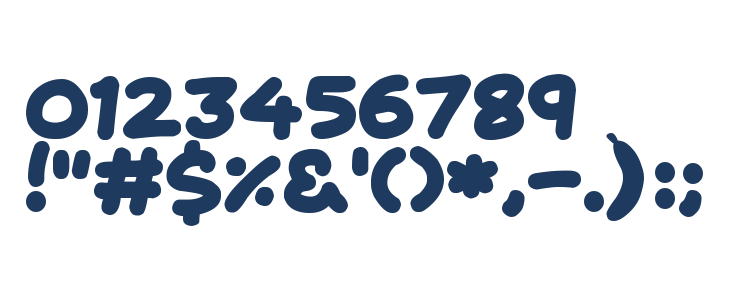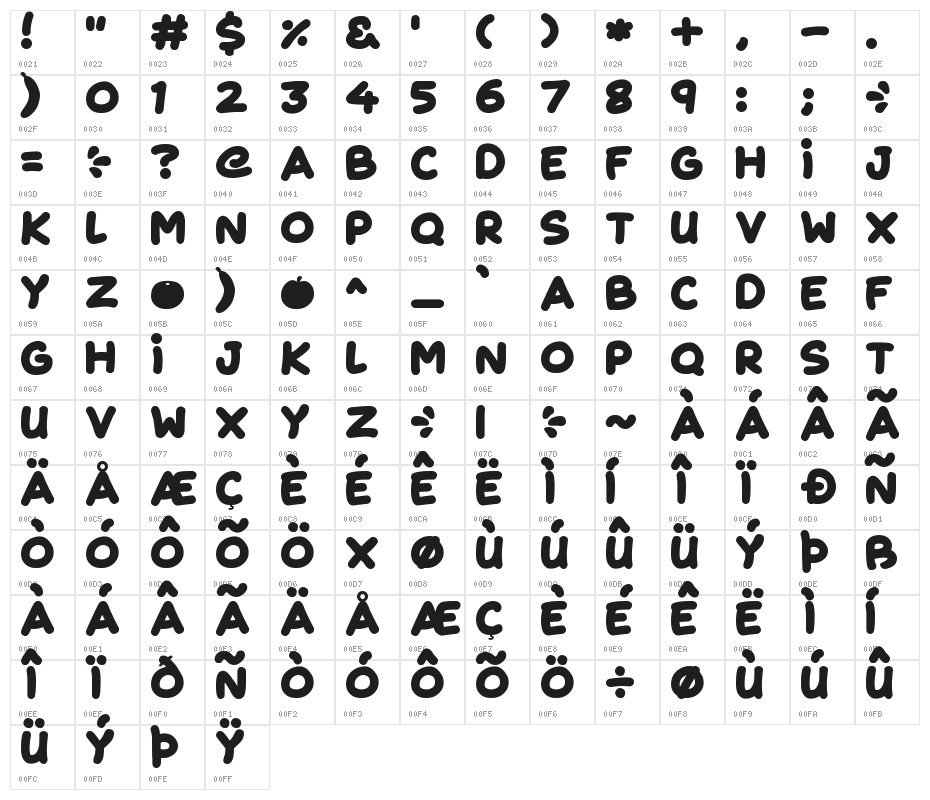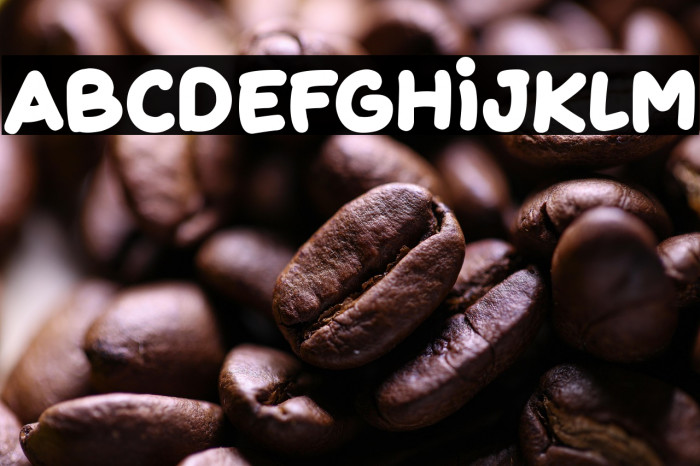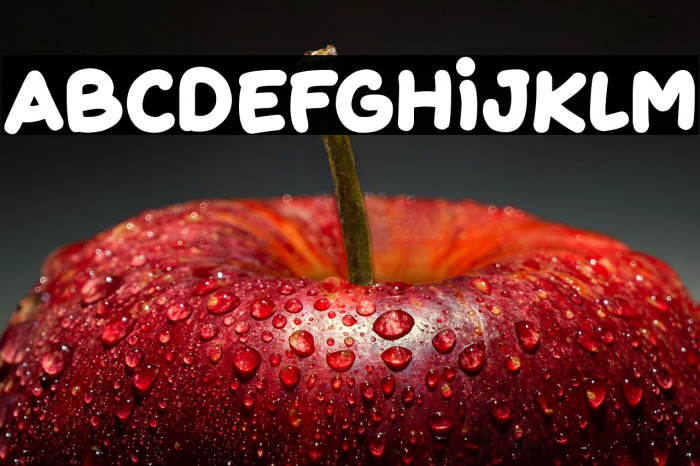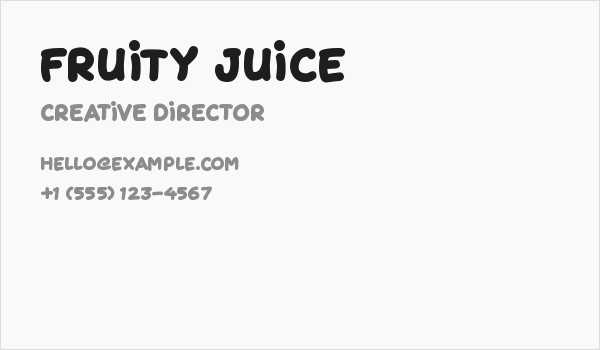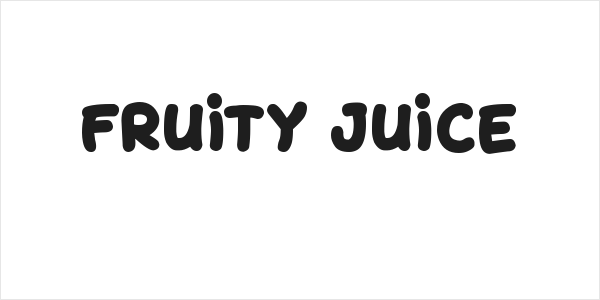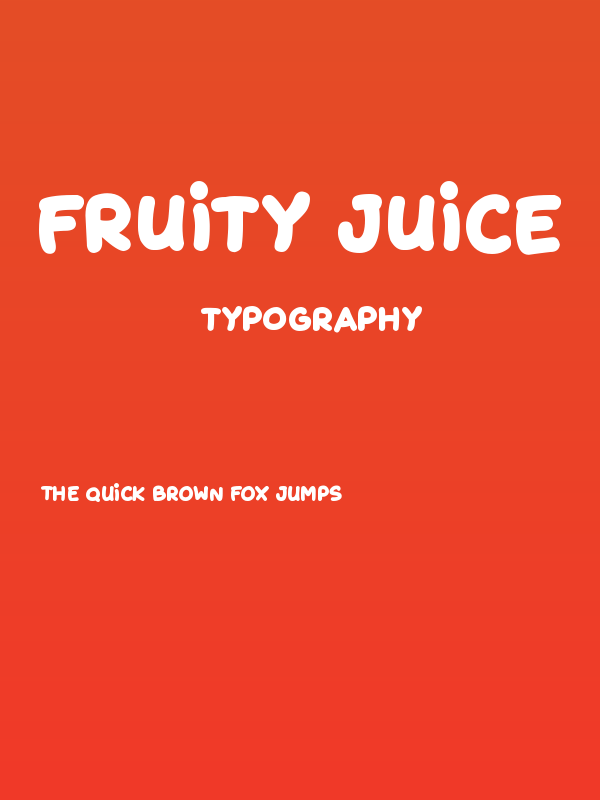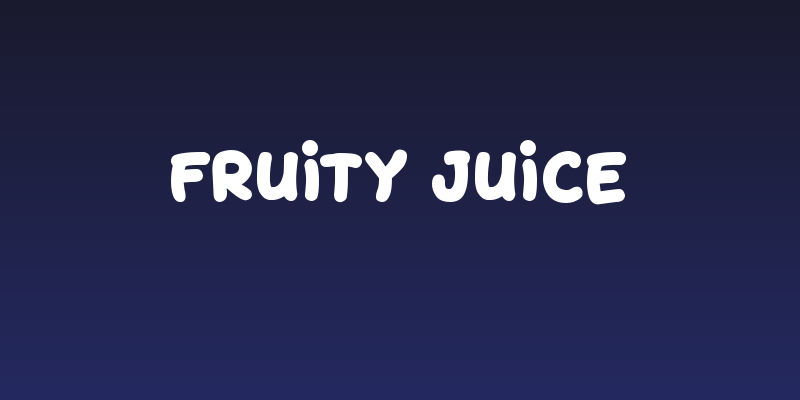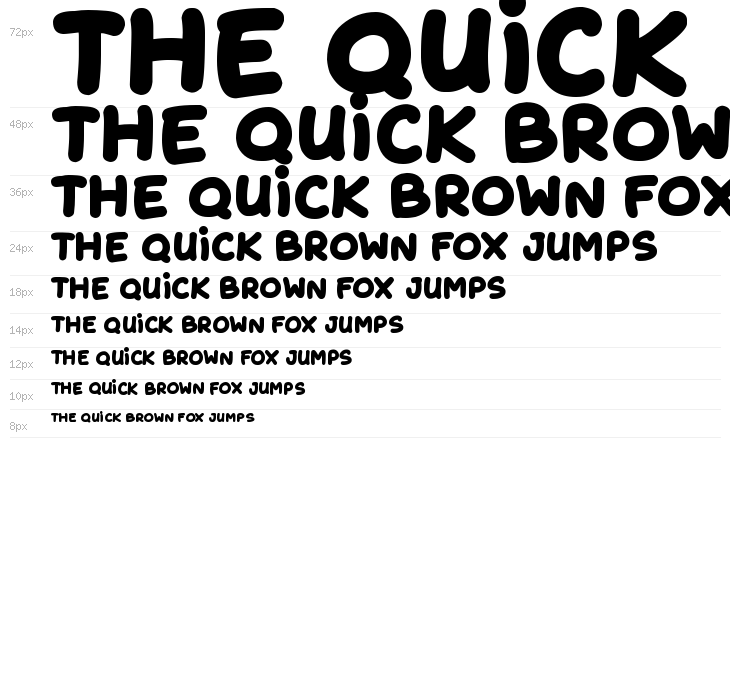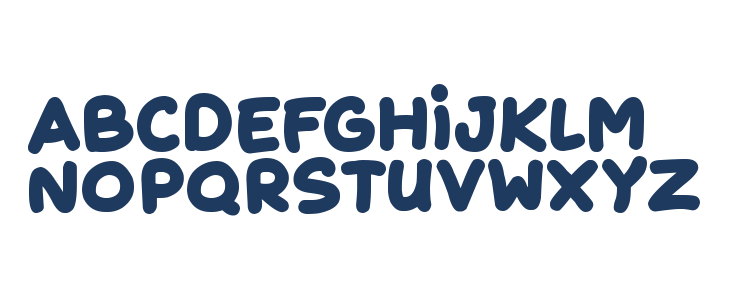
Fruity Juice Font
Fruity Juice Description
This playful and bold font features rounded, bubbly characters that exude a sense of fun and whimsy. The letters are thick and have a consistent stroke width, giving them a strong presence on the page. The rounded edges and slightly irregular shapes add a hand-drawn, organic feel, making it ideal for projects that aim to convey a friendly and approachable tone. The numbers and special characters maintain the same playful style, ensuring consistency across all text elements. This font is perfect for designs that require a touch of personality and charm.